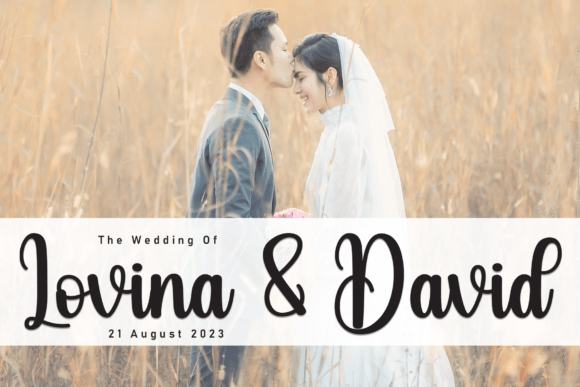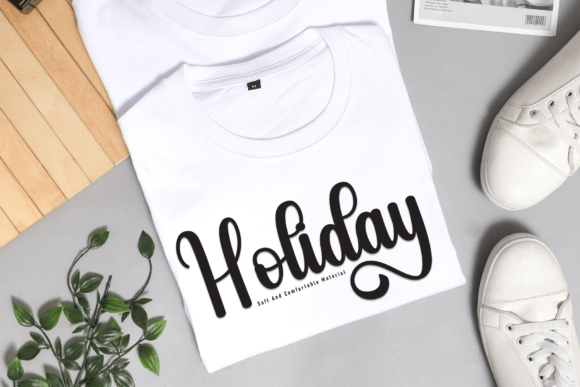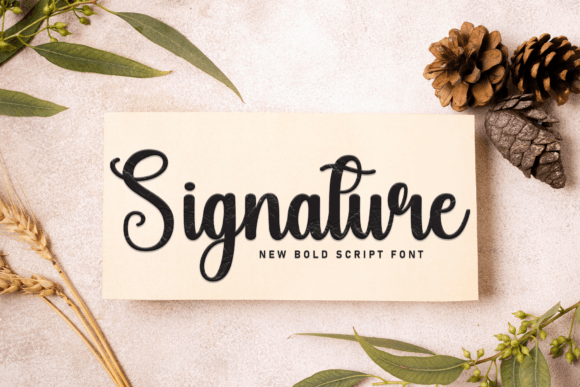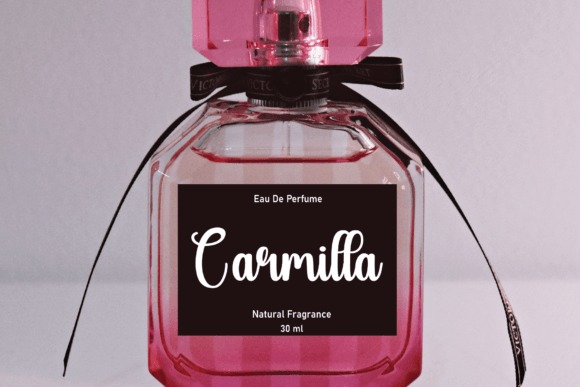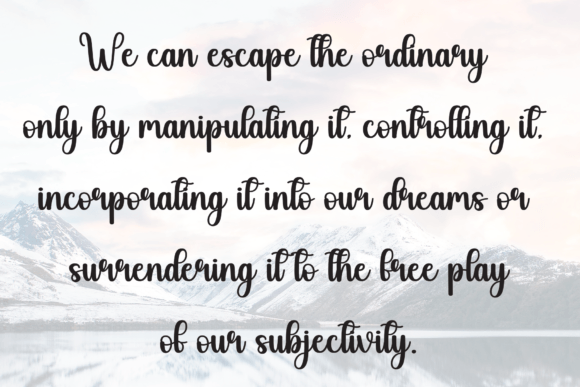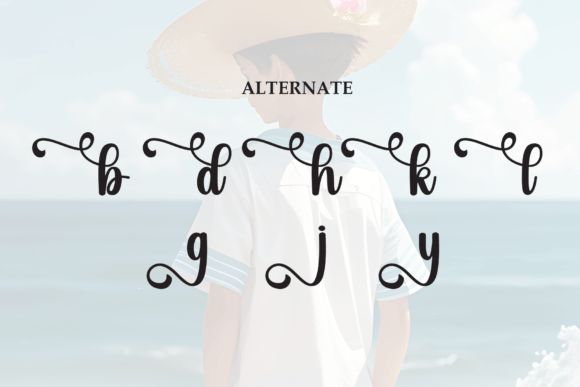
Getting Inspired by the Sunshine
Do you ever get a spark of creativity while listening to your favorite beach tunes? For many of us, the sound of the waves and the carefree vibes of summertime can be the perfect catalyst for our next design project. And speaking of sunshine-filled inspiration, today we’re shining the spotlight on a font that’s sure to bring a smile to your face – the Beach Boys Font.
This sweet and friendly handwritten display font is perfect for adding a touch of whimsy to your designs. Whether you’re crafting wedding invitations, creating a birthday card, or looking for a fun way to express yourself on social media, the Beach Boys Font is an ideal choice. Its cute and playful style makes it a valuable asset for designers looking to add a little extra personality to their work.
Beach Boys Font Key Features
- Font Family: The Beach Boys Font is a custom-designed font, but it is often compared to the font ‘Pacifico’ or ‘Great Vibes’ in terms of style and aesthetic.
- Unique Characteristics: The Beach Boys Font features a unique, hand-drawn aesthetic with subtle imperfections that give it a distinctive, laid-back feel.
Beach Boys Font Review
As a designer, I was excited to dive into the Beach Boys Font and see if it lives up to its laid-back, beachy vibe. Here’s my honest review.
- The Beach Boys Font has a unique, retro feel that’s perfect for music-related projects or anything that needs a laid-back, summery vibe.
- The font is highly legible, even at smaller sizes, which is a must for any font.
- The Beach Boys Font comes in a range of weights, from light to bold, which gives designers a lot of flexibility when it comes to choosing the right style for their project.
- The Beach Boys Font is not as versatile as some other fonts on the market. It’s perfect for specific projects, but might not be the best choice for more general use.
- The font could benefit from a few more ligatures and alternates to give designers more options when it comes to customizing their text.
Overall, the Beach Boys Font is a great choice for designers who are looking for a unique, retro feel for their projects. While it may have a few limitations, it’s definitely worth checking out for the right projects.
Getting the Most Out of the Beach Boys Font
Use the Beach Boys Font to create a retro or surf-inspired design. It’s perfect for beach-themed posters, flyers, or social media graphics. Experiment with different font sizes, colors, and combinations to create a unique look.
The Beach Boys Font is ideal for:
- Beach-themed designs
- Retro-inspired graphics
- Surf or skate culture designs
- Summer-themed events or promotions
Alternatives to “Beach Boys Font” for Designers
Pacifico is a modern script font designed by Carlos Fabjanec. It is perfect for creating a relaxed, casual feel in designs. This font is ideal for use in beach-themed projects, travel brochures, and social media graphics.
Comparison to Beach Boys Font: Pacifico has a more modern and elegant feel compared to the classic, laid-back vibe of the Beach Boys Font. It’s a great choice when you want to convey a sense of adventure and freedom.
Great Vibes is a hand-drawn script font designed by Pizzay. It’s a great choice for designers who want to create a fun, carefree atmosphere in their designs. This font is perfect for use in beach-themed projects, music festivals, and summer-themed events.
Comparison to Beach Boys Font: Great Vibes has a more playful and whimsical feel compared to the classic, laid-back vibe of the Beach Boys Font. It’s a great choice when you want to add a touch of fun and personality to your designs.
While the Beach Boys font is not available for commercial use, you may be able to use it for personal projects, such as creating fan art or personal designs. However, please note that using the font without permission may be considered copyright infringement, so use at your own risk.
What is the font size and style used in the Beach Boys logo?
The Beach Boys logo features the font in a bold, uppercase style, with a font size of approximately 24-30 points. The exact font size and style may vary depending on the specific application and usage of the logo.